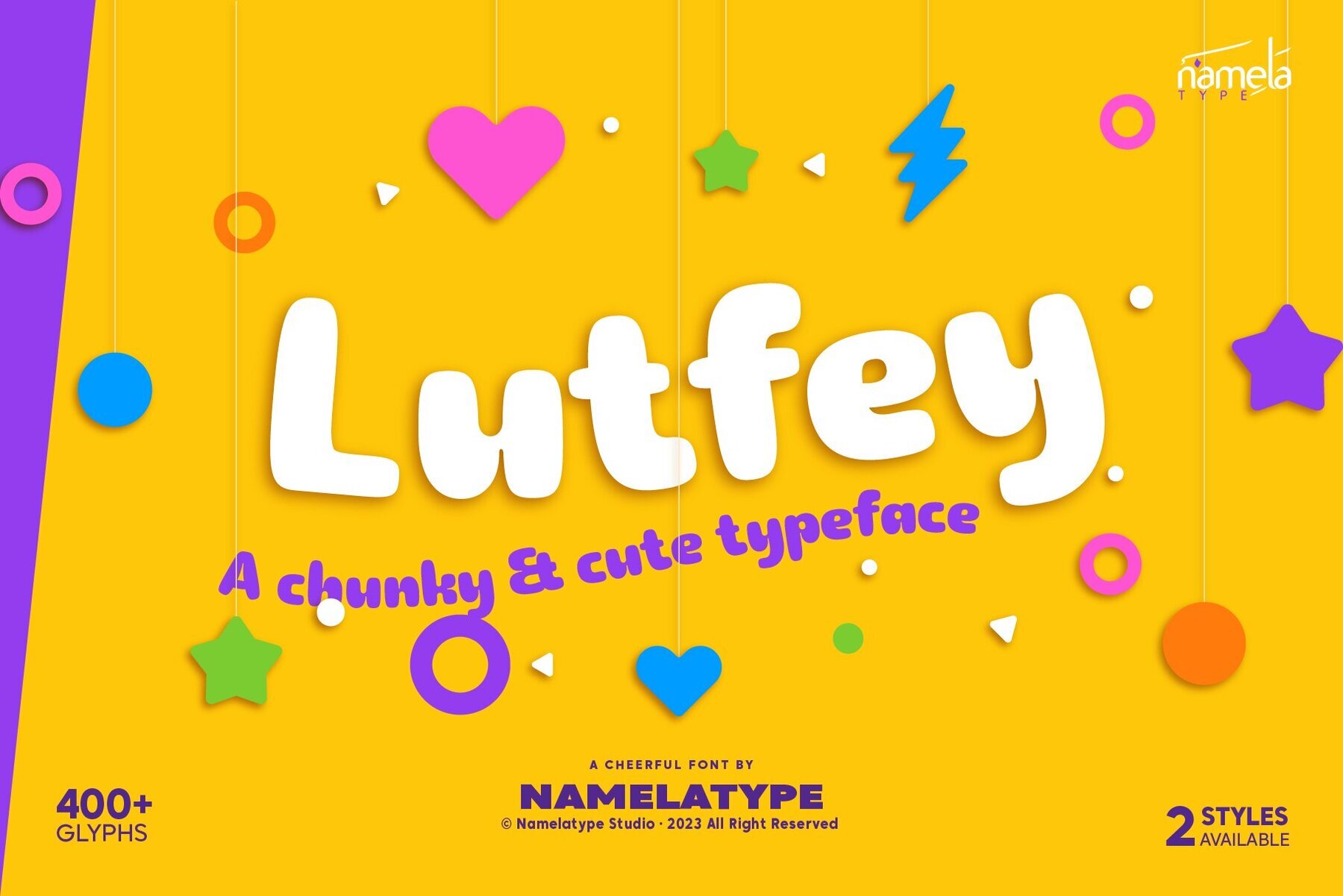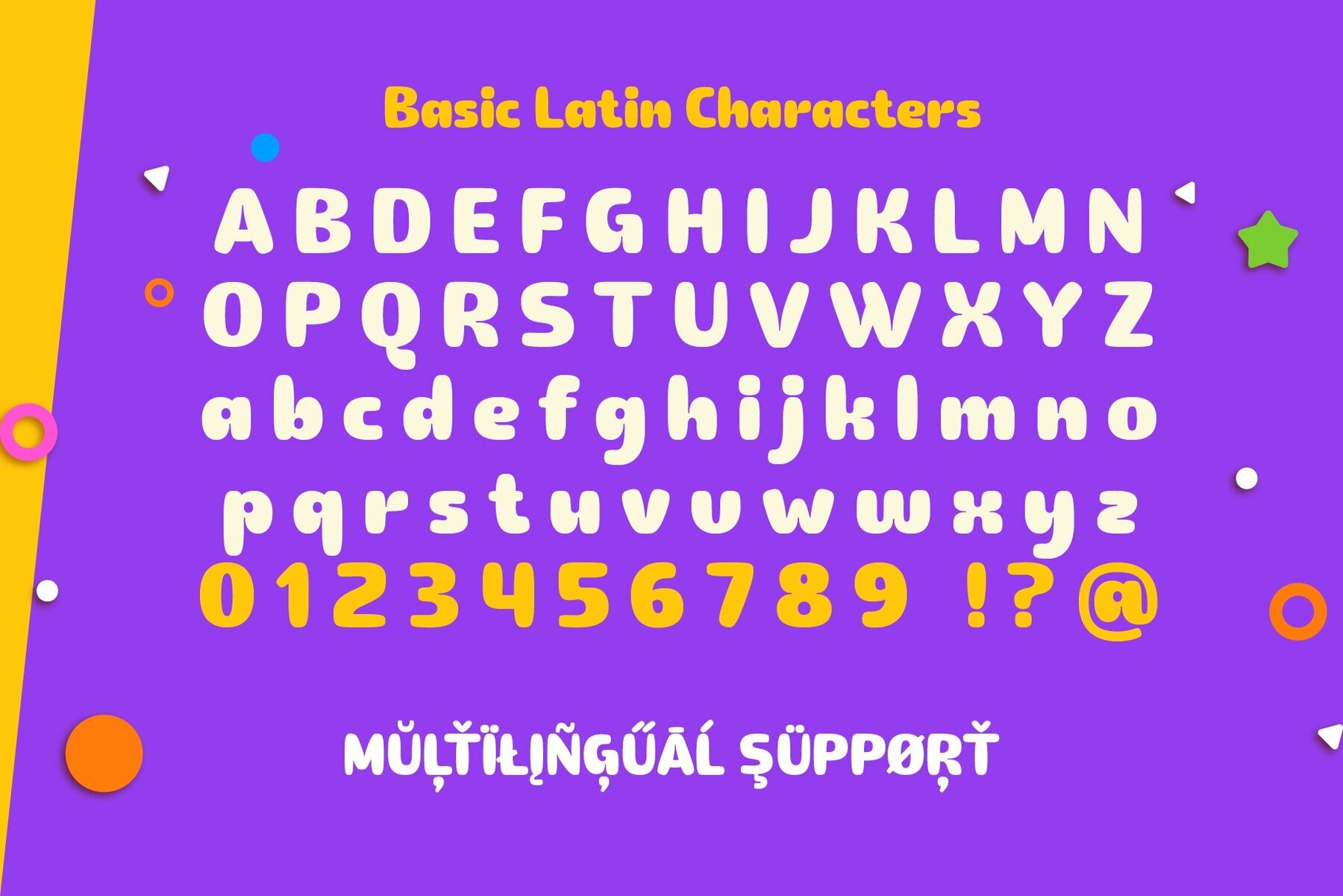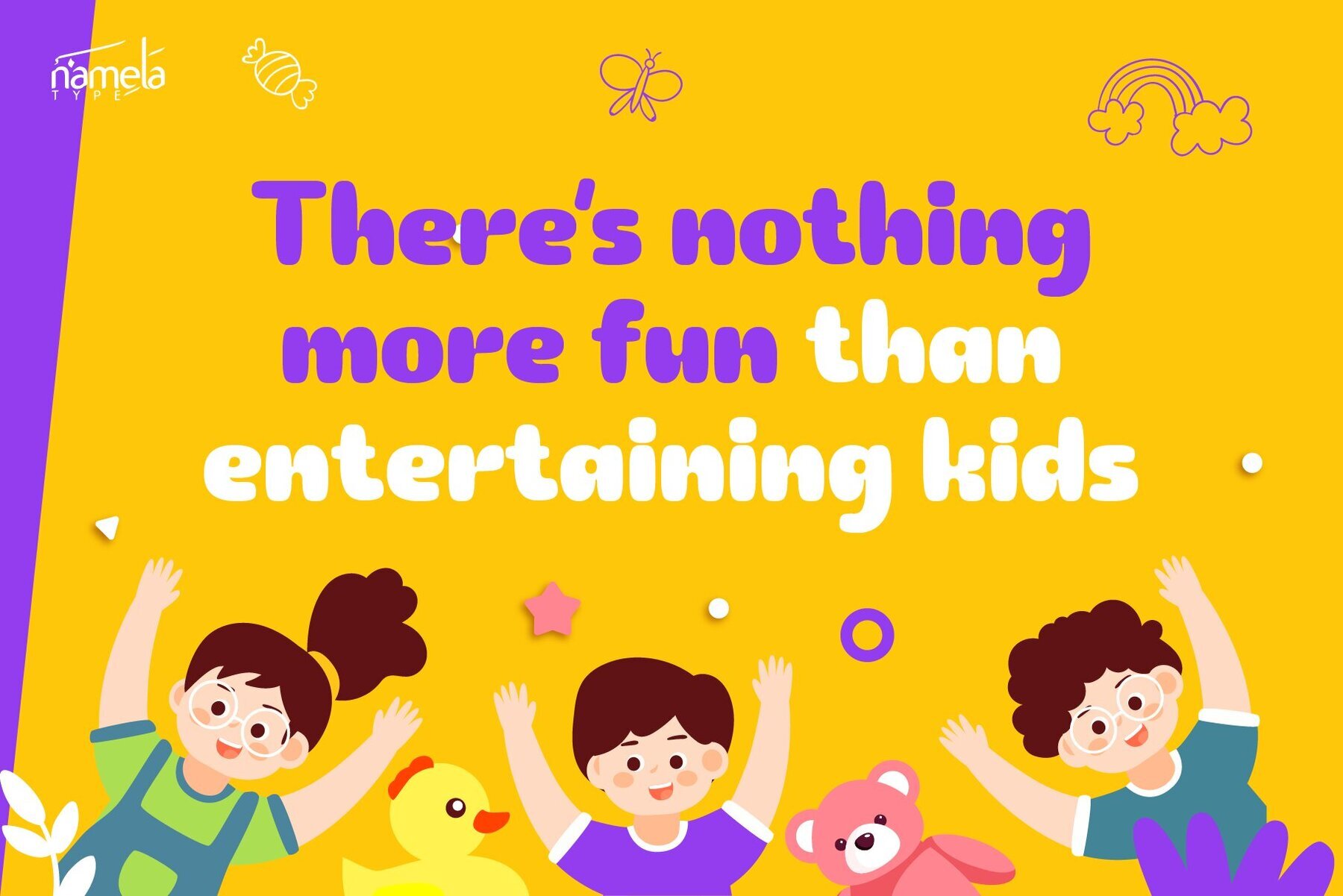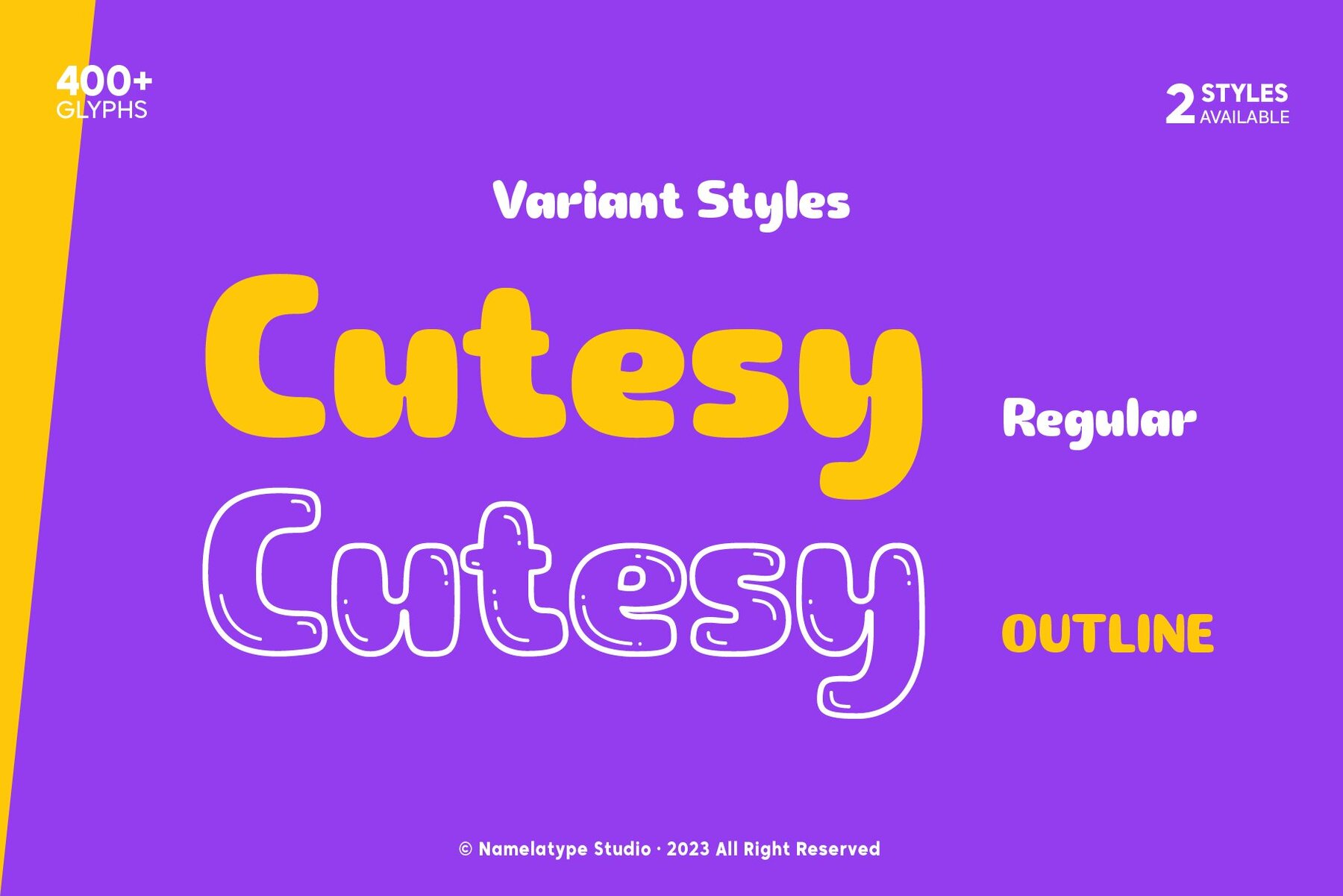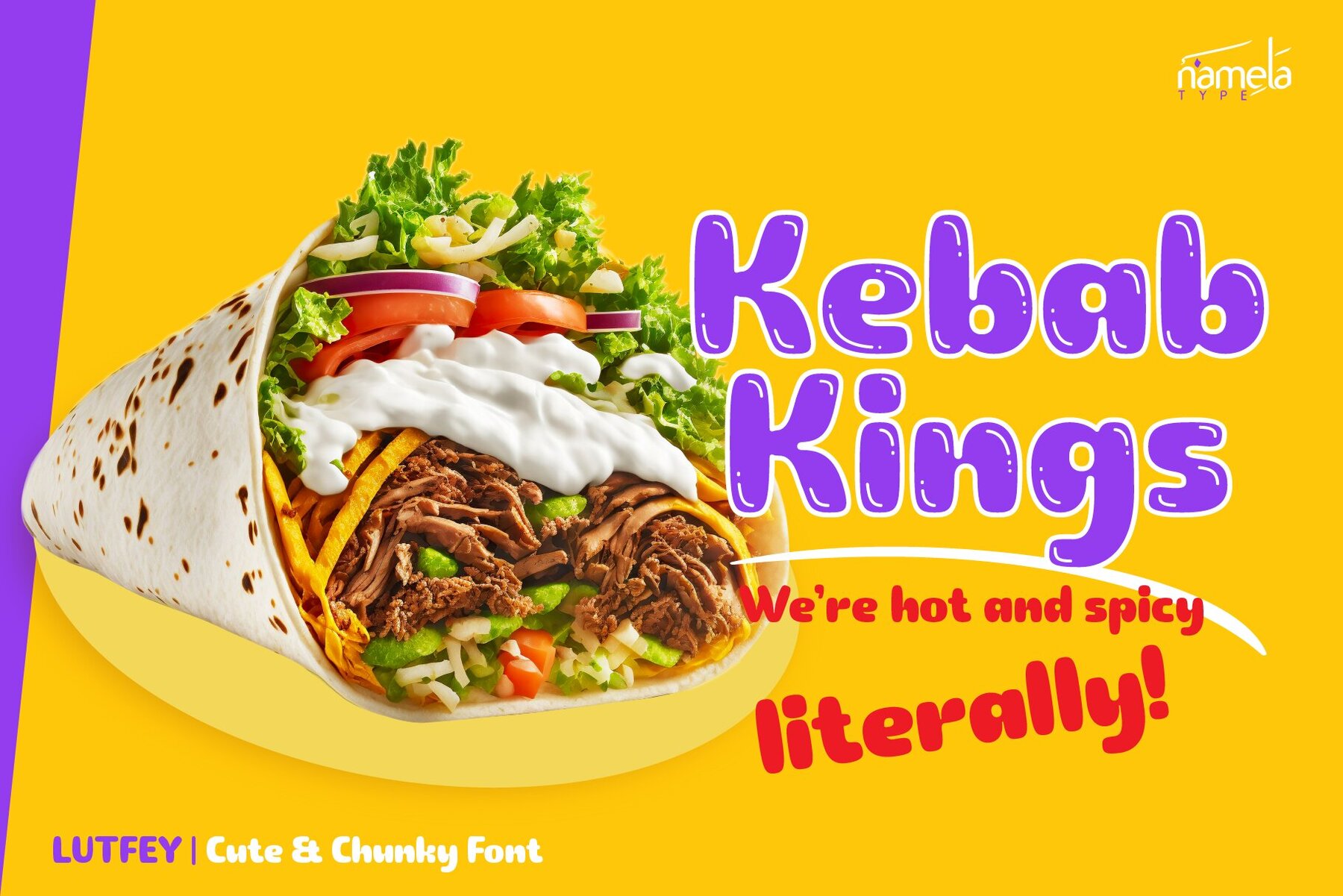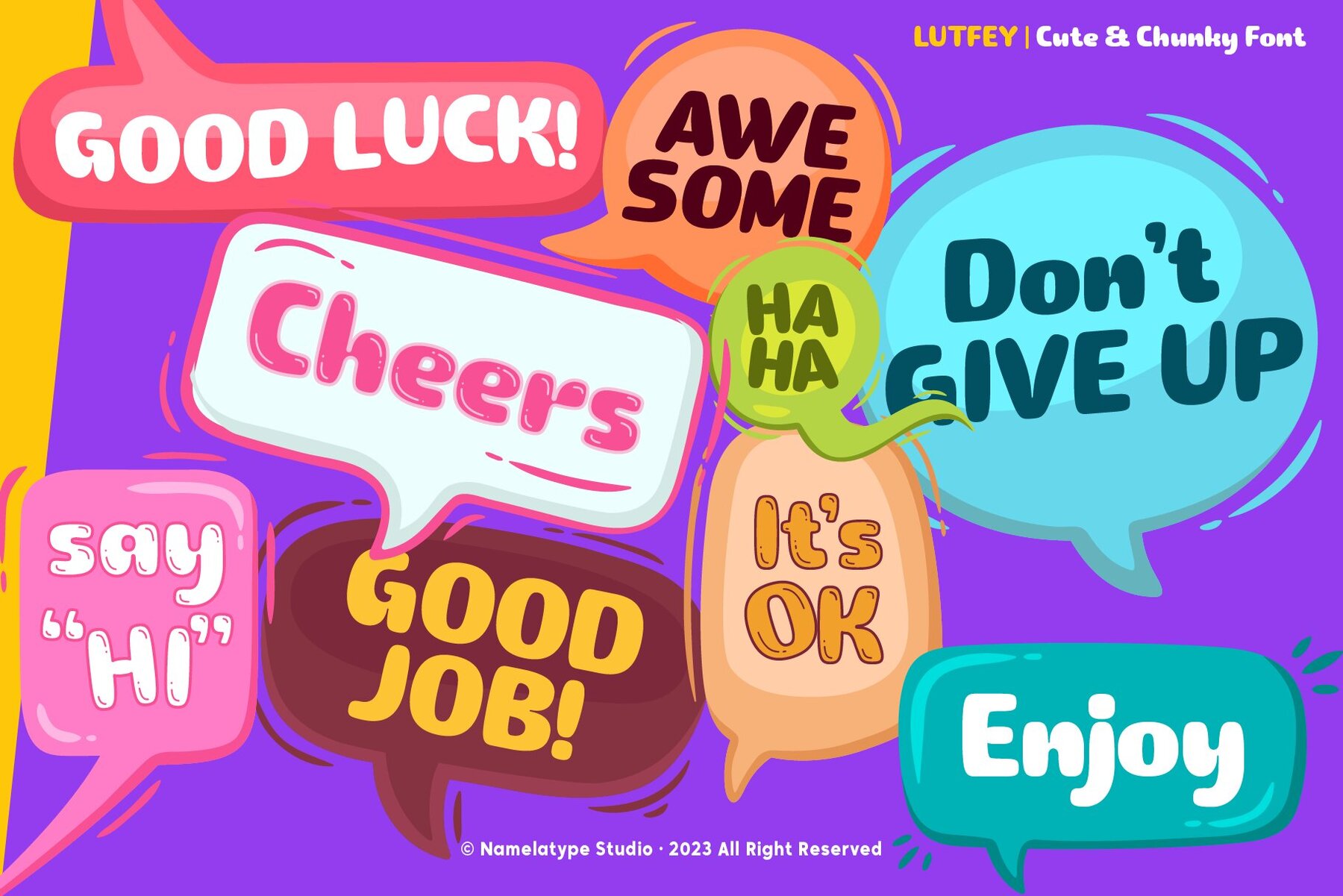
Lutfey Font
Lutfey Regular
Lutfey Outline
Lutfey Fun & Cute Font presents a charming and robust typeface that masterfully combines bold and gentle elements. The font's characters exude a playful firmness, making it a perfect fit for diverse design projects. Its smooth lines and rounded edges contribute to a visually pleasing and welcoming aesthetic. This balance of boldness and gentleness assures the font can adapt effortlessly to project requirements, providing a captivating visual experience.
The typeface also features subtle ink-trap details at each corner, which add a touch of sophistication and enhance its overall appeal. These nuances underline its adaptability and charm, making it a favored choice for various applications. This font's versatility is further reflected in its ability to bring a delightful and engaging quality to design work, ensuring each project stands out with its captivating and novel design features.